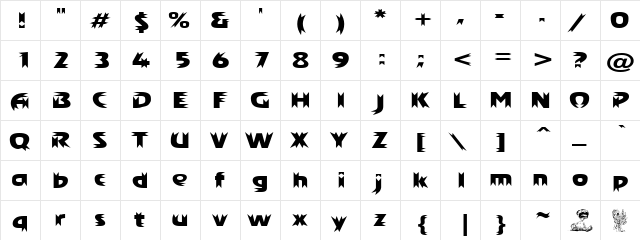
Bite Bums Bruton Regular
Design Context for Bite Bums Bruton Typeface
Bite Bums Bruton is a composed and adaptable typeface that performs quietly and consistently across a wide range of design contexts.